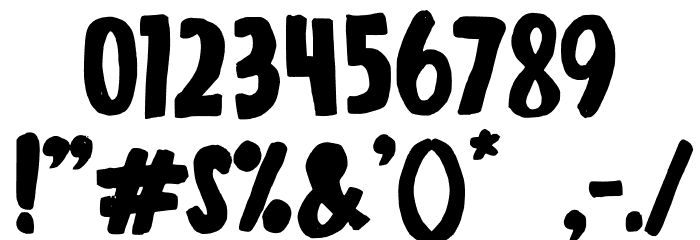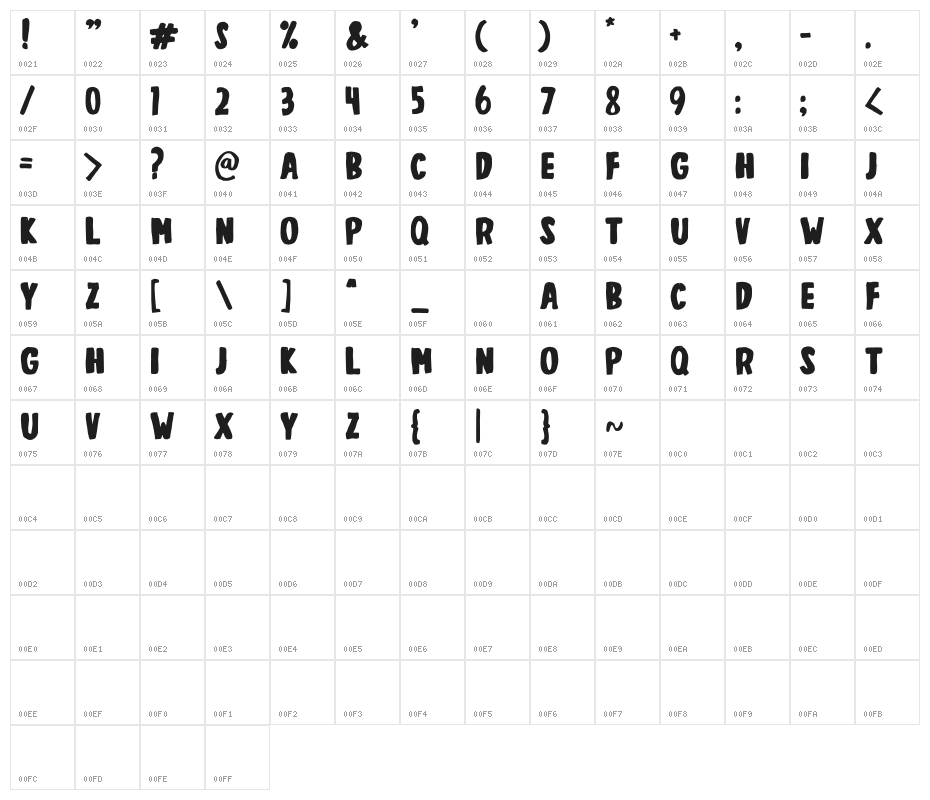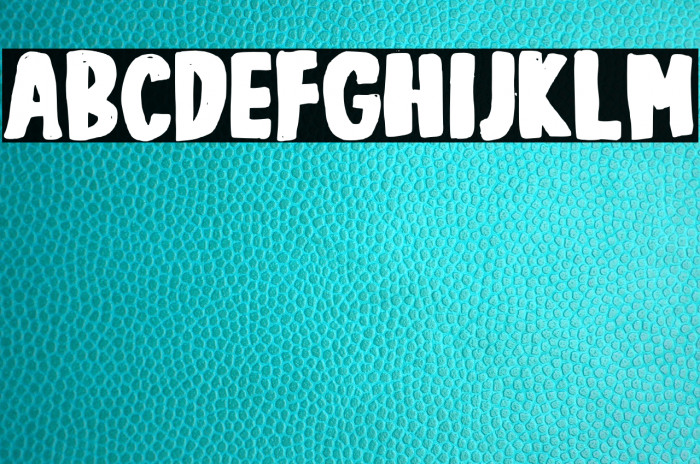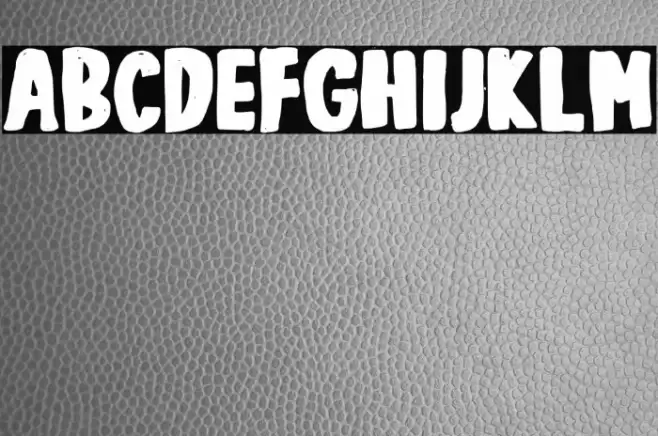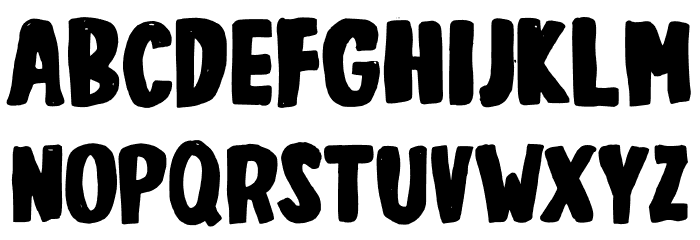
Coconut House Font
Coconut House Description
This font features a bold and playful style with a hand-drawn appearance. The characters are thick and rounded, giving them a friendly and approachable feel. The uppercase letters are consistent in height, while the lowercase letters maintain a similar weight, enhancing readability. The numbers are bold and match the overall style, making them stand out. Special characters are creatively designed, maintaining the playful theme. This font is ideal for projects that require a fun and informal touch, such as children's books, posters, or branding for casual products.
| Overall Style | Playful, Hand-drawn |
| Proposed Projects | Ideal for children's books, playful posters, casual branding, and creative projects. |